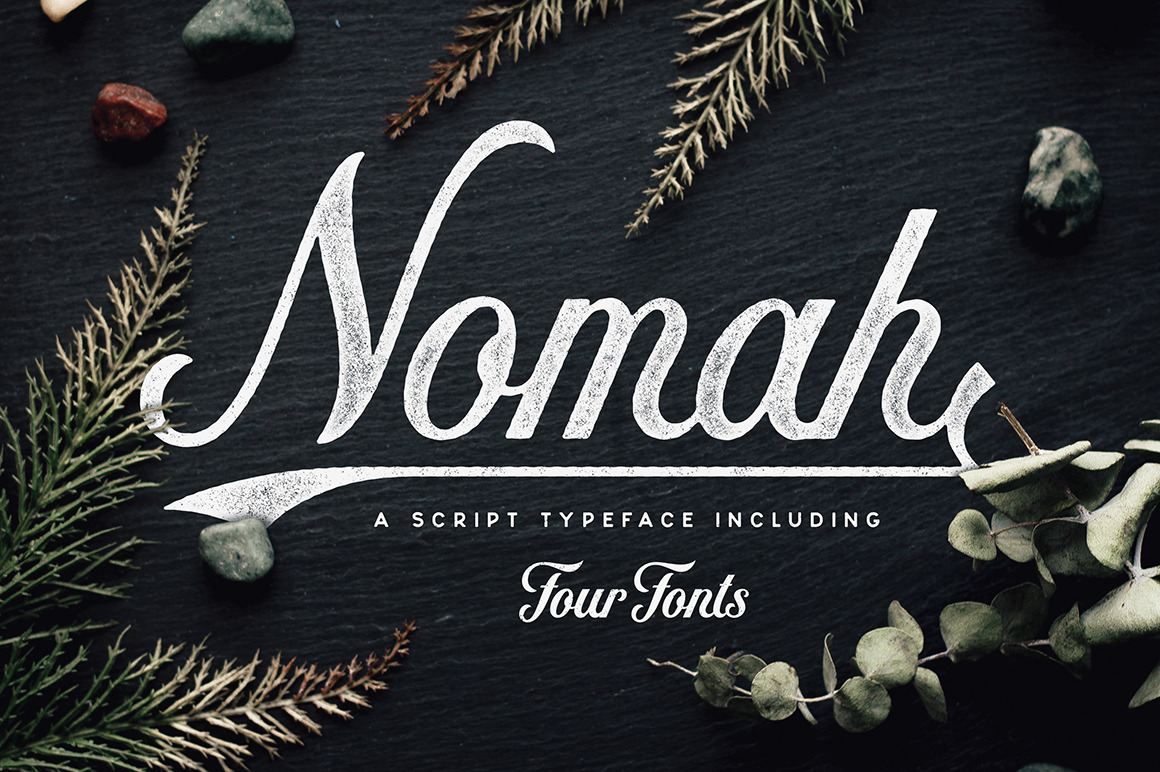
Nomah | A Script Typeface + Bonus
Nomah, a friendly new script typeface with a lot of personality! Use Nomah to add energy to your logo, package design, shirts, invitations, and so much more.
This typeface includes what a lot of other ones don't. Various weights! There are 4 styles ranging from light to bold, resulting in over 800 characters, including select ligatures and flourishes. Multiple fonts within a typeface can add so much variety to your work while still looking consistent (Or buy a single font a la carte in my shop). This typeface includes European characters. You will also find that surrounding letters of an apostrophe will connect, a feature most script typefaces don't include.
Nomah pairs well with a sans serif typeface of mine called Plat, which is used in the images above. Plat is also available for purchase in my shop. And of course, these typefaces are vector so you can scale them as large as you need!
Note - the underline glyphs shown in the cover image are unable to determine how long your word is, so some subtle tweaking might need to be made in order to create the look you desire.
Additional glyphs are included for select letters for use on the end of words. You can find these in your glyphs panel.